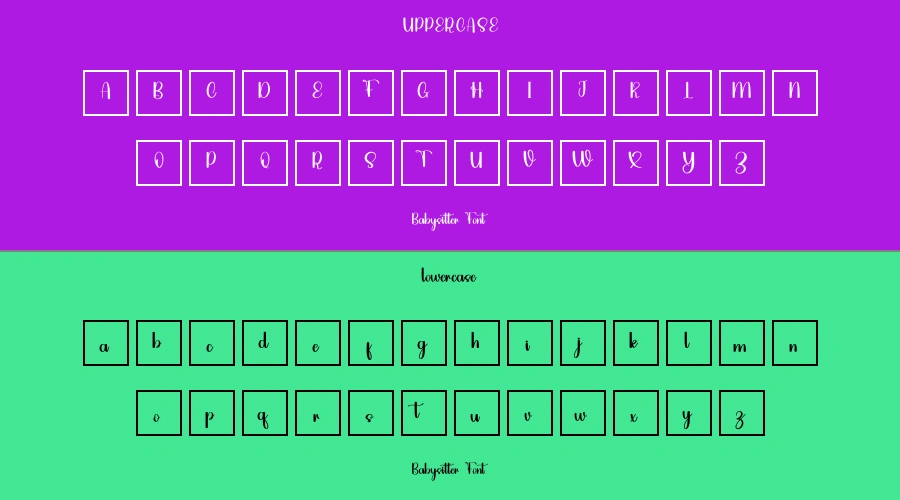
About Babysitter Font
When typographic excellence matters most, Babysitter Font delivers through its thoughtful blend of tapered strokes and memorable presence. Specially crafted for event branding, it offers the precision and industrial strength required for sophisticated design work. Every detail serves a purpose.
The character set showcases thoughtful details like width contrast alongside functional period ligatures. This proves especially valuable in exhibition titles, where multi-color registration directly influences results. Particular attention was paid to proportion and emotional resonance during development.